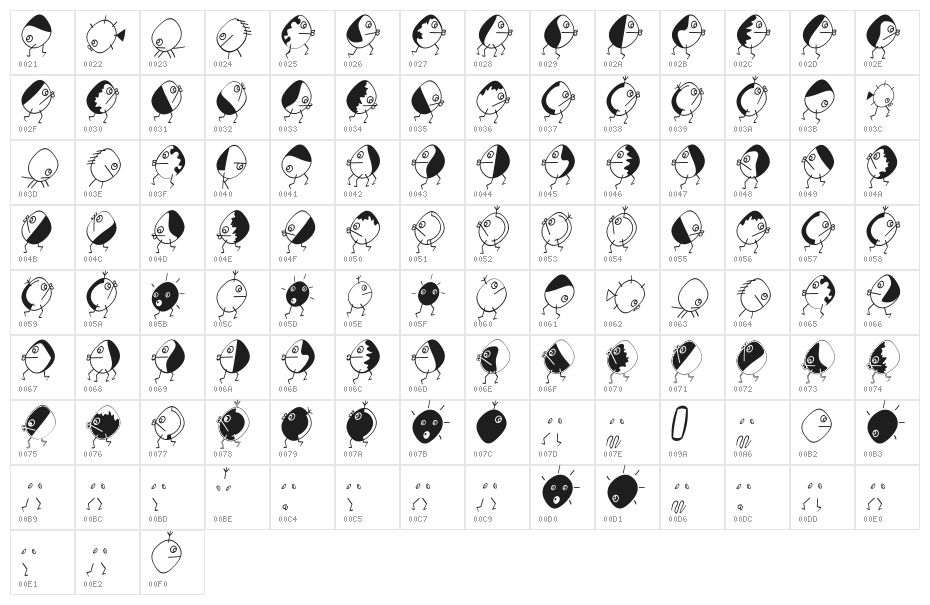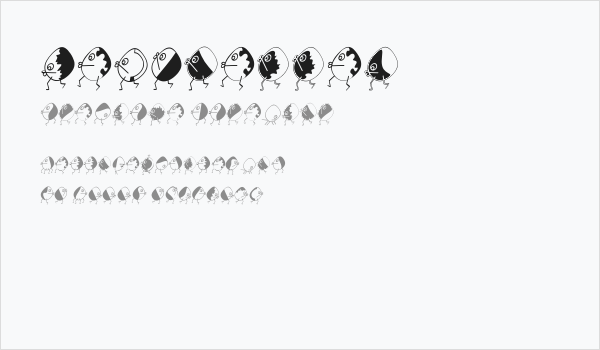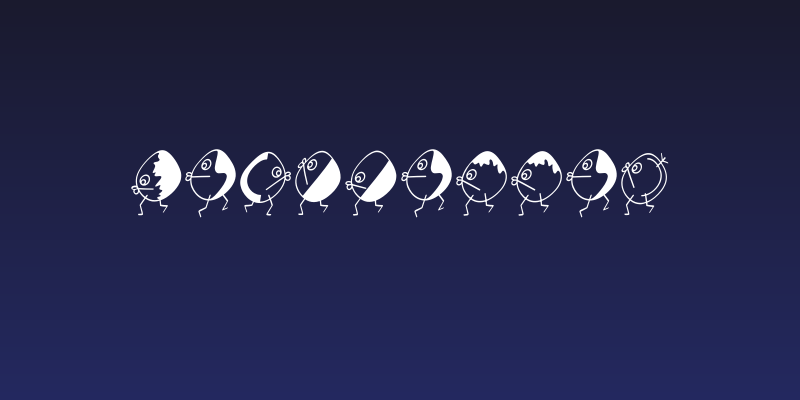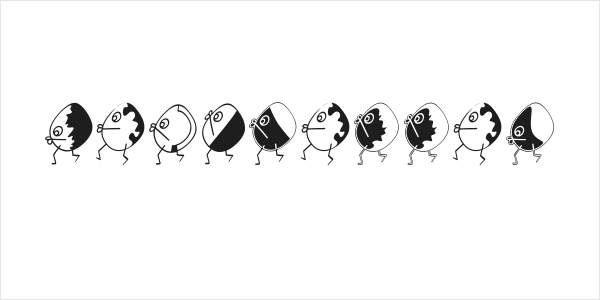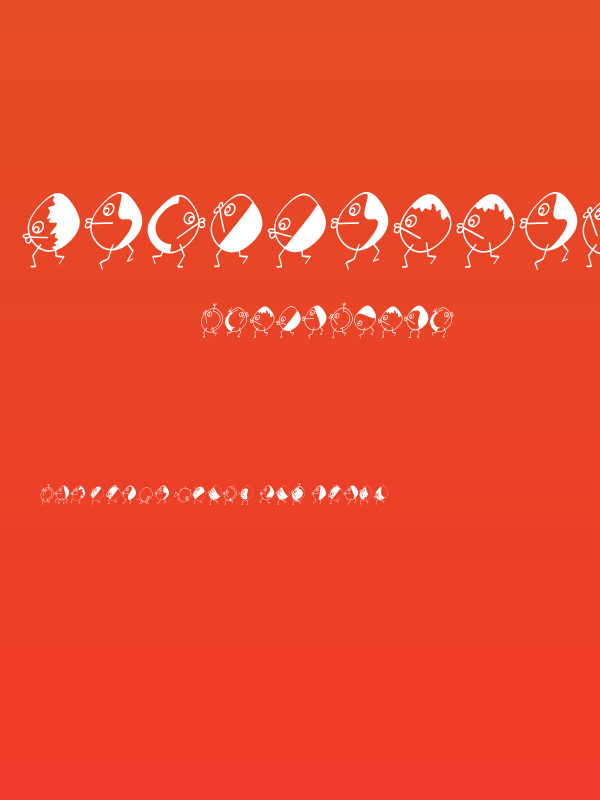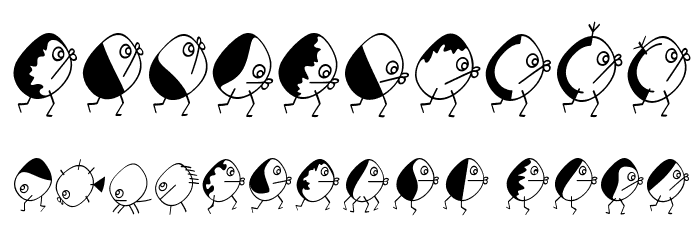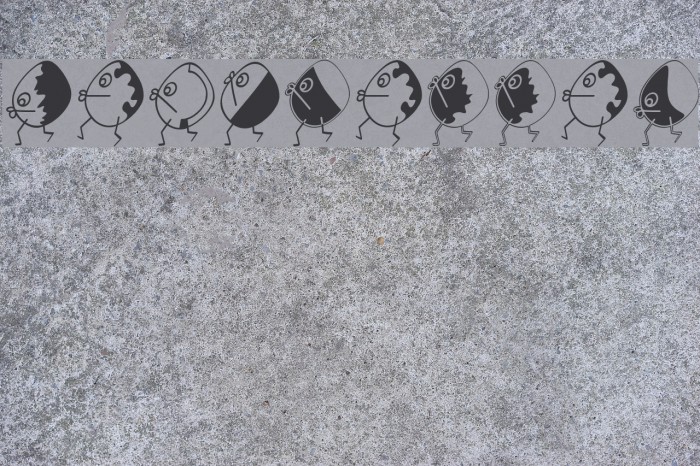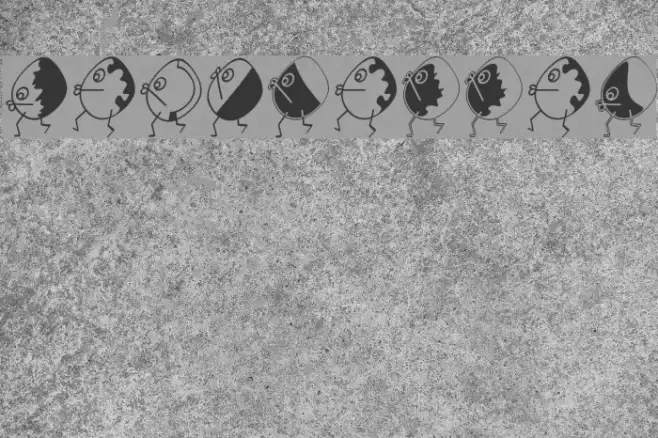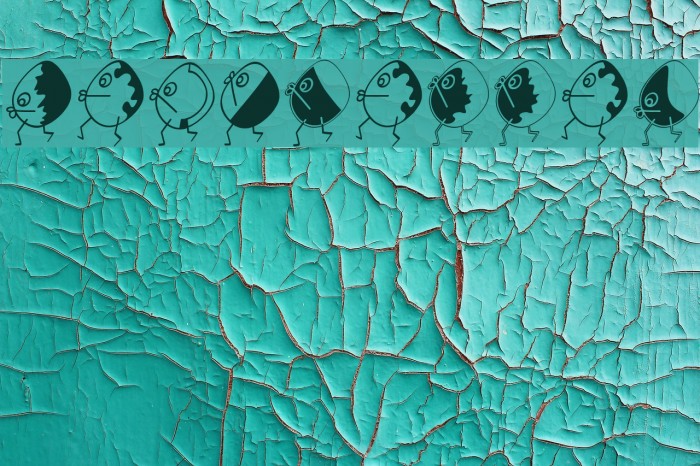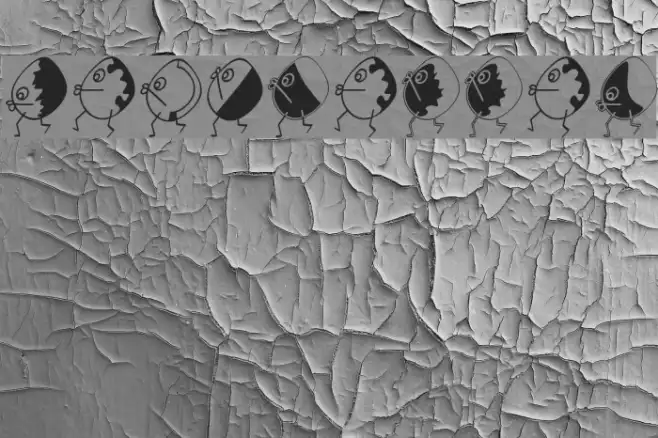
NewKoeppes Font
| Overall Style | Decorative, Whimsical, Playful |
| Use Case | Logos, Headlines, Posters, Children’s content |
| Proposed Projects | Children’s books, playful branding, greeting cards, posters, educational materials. |